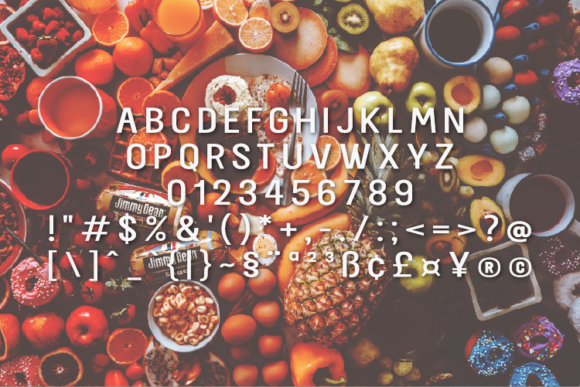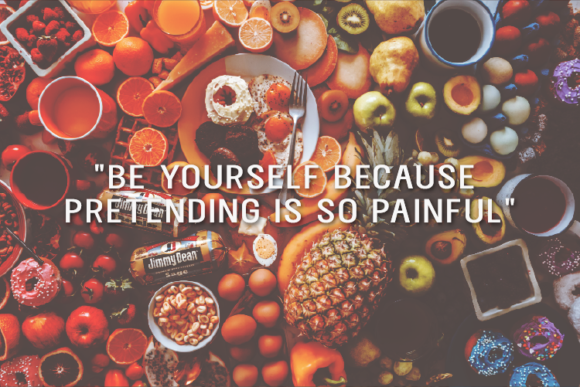
Introduction to Leoawell Font
As a designer, there’s nothing quite like the thrill of landing on the perfect font for a project. The moment when the words start flowing smoothly, and the design begins to take shape. For many of us, this is the moment that makes all the hard work worth it. But what happens when that perfect font eludes us? Enter the Leoawell Font, a simple and neat sans serif font that’s about to become your new best friend.
With its versatility and high quality design, the Leoawell Font is the perfect addition to any creative project. Whether you’re working on a logo, brochure, or website, this font is sure to make your design stand out. And the best part? It’s a free download, making it an accessible design resource for designers of all levels.
Key Features of Leoawell Font
- High-quality, professional font design suitable for various creative projects, including graphic design, web design, and digital art.
- Unique, modern design aesthetic that sets it apart from other fonts in its category.
Honest Review: Leoawell Font
As a designer, I’m always on the lookout for high-quality design resources to elevate my creative projects. The Leoawell Font caught my attention, and I decided to give it a try.
- ✨ The font is available in various weights and styles, offering plenty of versatility for different design projects.
- ✨ The font is highly legible, making it perfect for body text and headlines.
- ⚠️ The Leoawell Font is a sans-serif font, which may not be suitable for designs that require a more traditional or serif look.
Overall, I’m impressed with the Leoawell Font’s high quality and versatility. While it may have some limitations, it’s a great option for designers who need a reliable and stylish font for their creative projects.
Tips for Getting the Most Out of the Leoawell Font
Use the Leoawell Font with a transparent background to create visually appealing graphics and designs. Experiment with different font sizes, colors, and styles to achieve the desired look for your creative project. You can also use the font in combination with other design elements, such as images and graphics, to add depth and interest to your design.
Common Use Cases for the Leoawell Font
The Leoawell Font is suitable for a wide range of creative projects, including logos, brochures, business cards, and social media graphics. Its high quality and versatility make it an excellent choice for designers and non-designers alike.